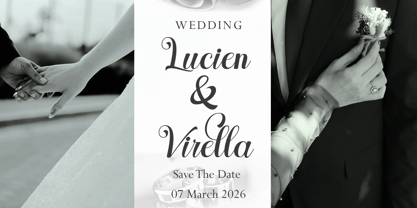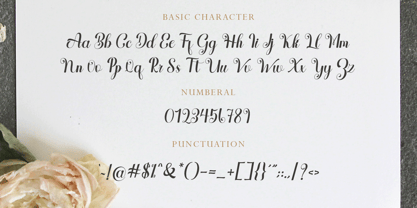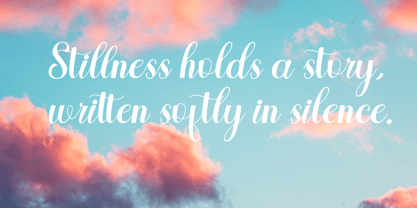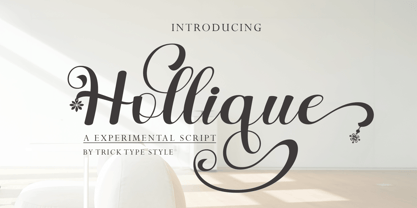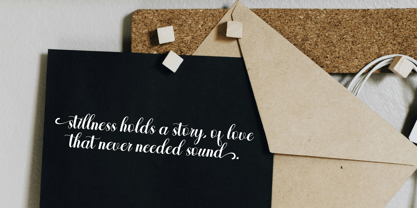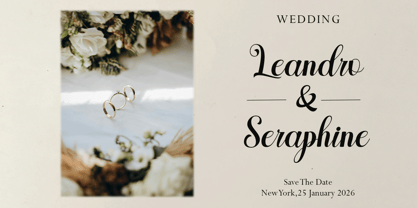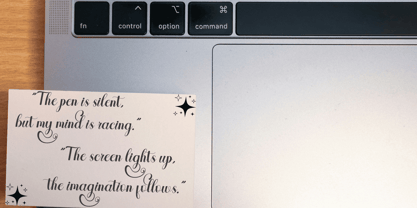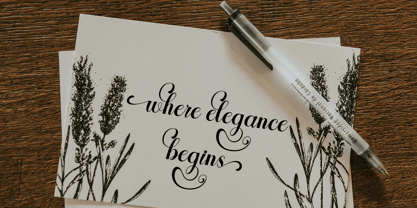
Hollique
by Trick Type Style
The Hollique Font Family was designed by Rizki Ramadhan and published by Trick Type Style. Hollique contains 1 styles. More about this family
Introducing Hollique—crafted for creators, this font speaks in elegance and whispers in inspiration. With its flowing curves and delicate flourishes, Hollique mirrors the quiet moments when creativity awakens. Perfect for invitations, quotes, branding, and storytelling—every letter is designed to dance with emotion. A digital penstroke that brings your imagination to life.
Designers: Rizki Ramadhan
Foundry: Trick Type Style